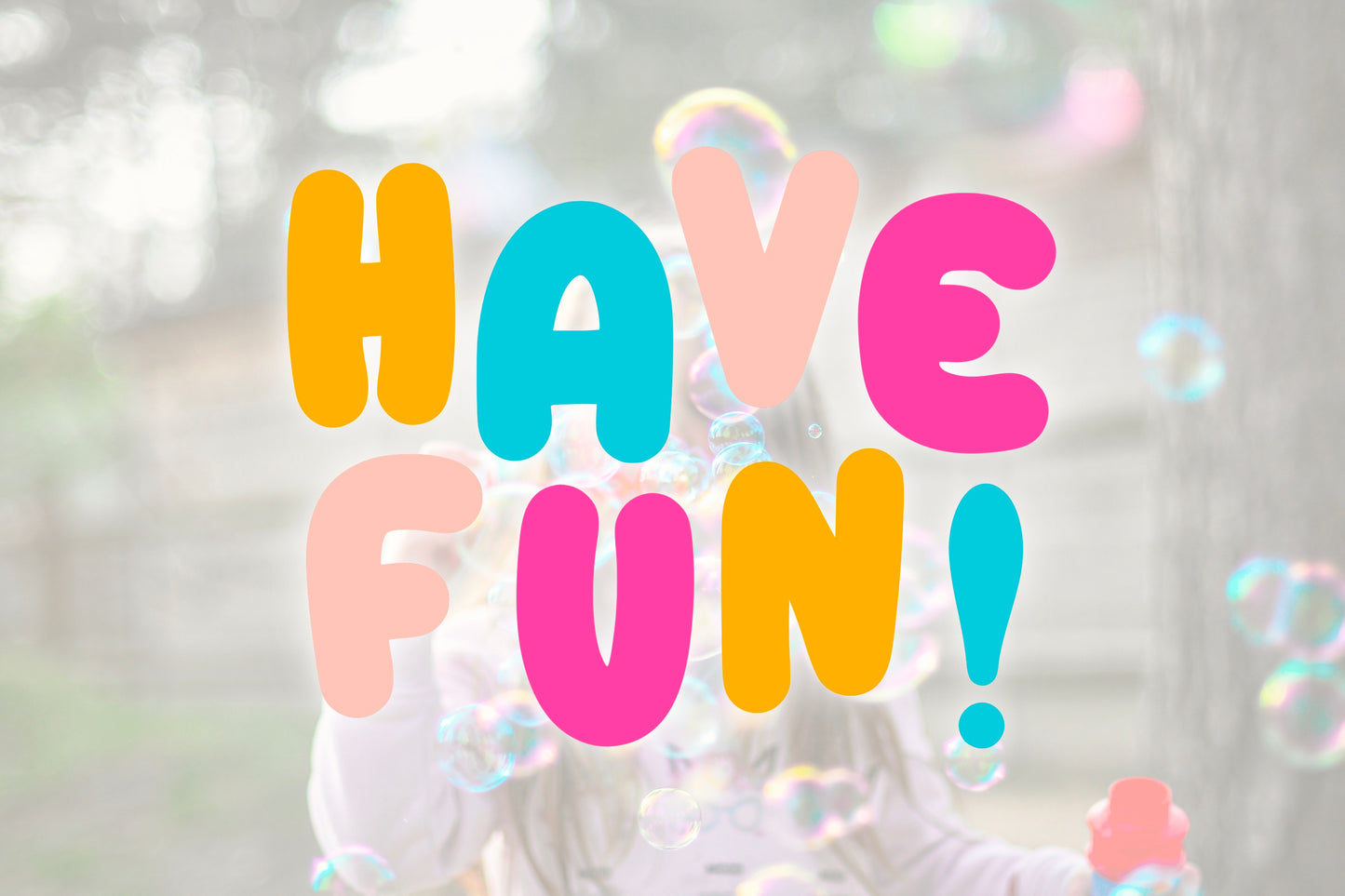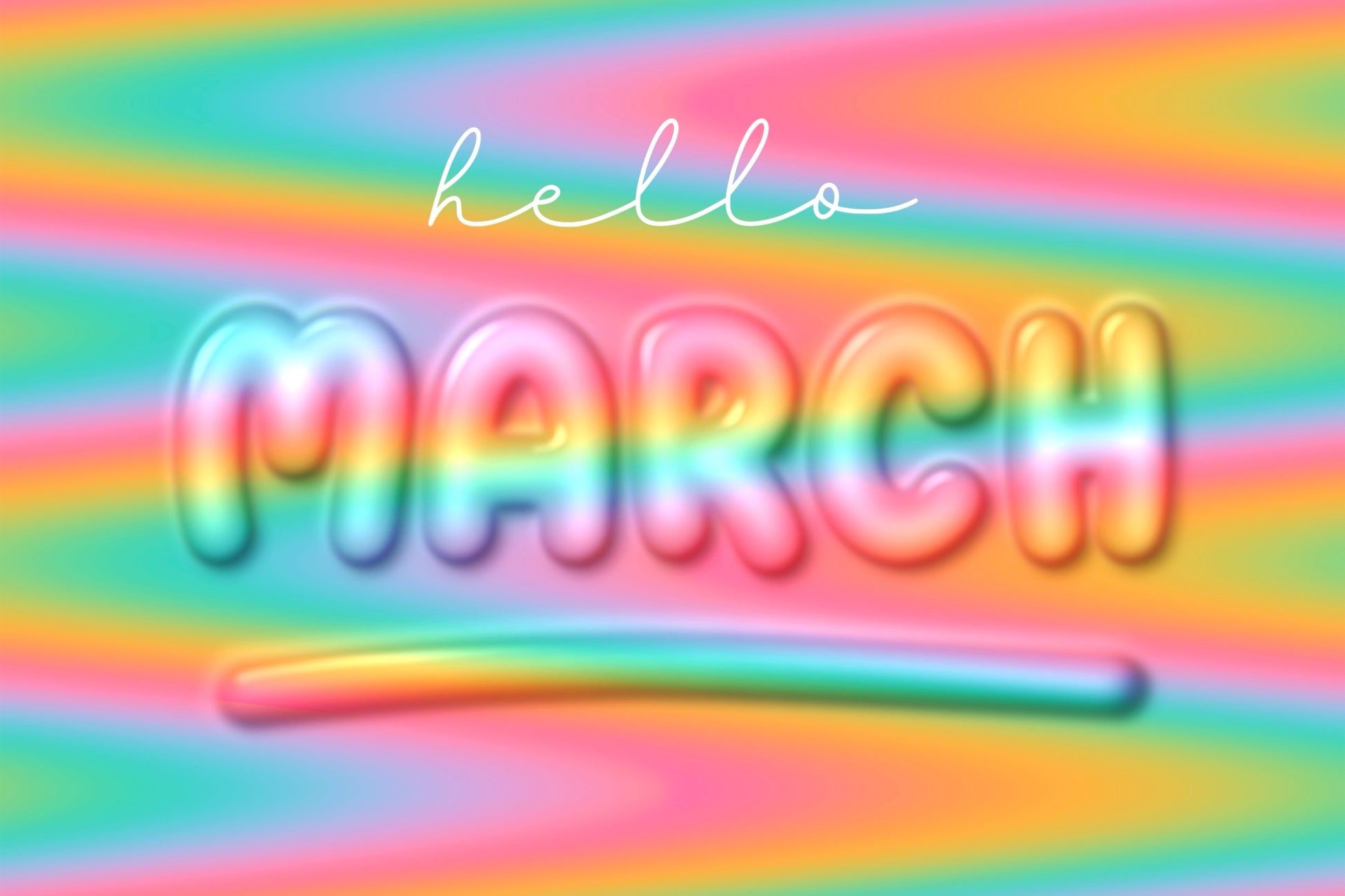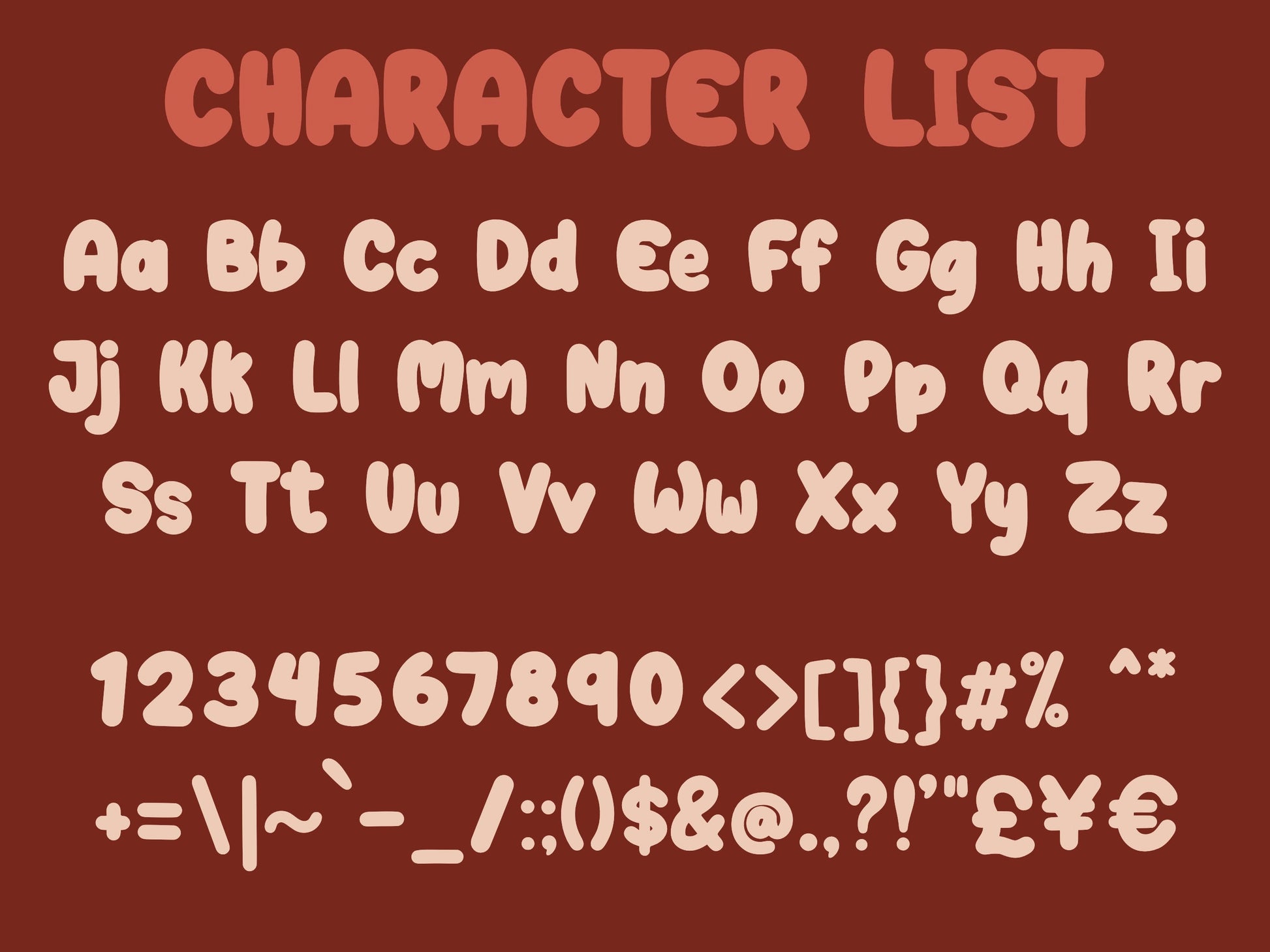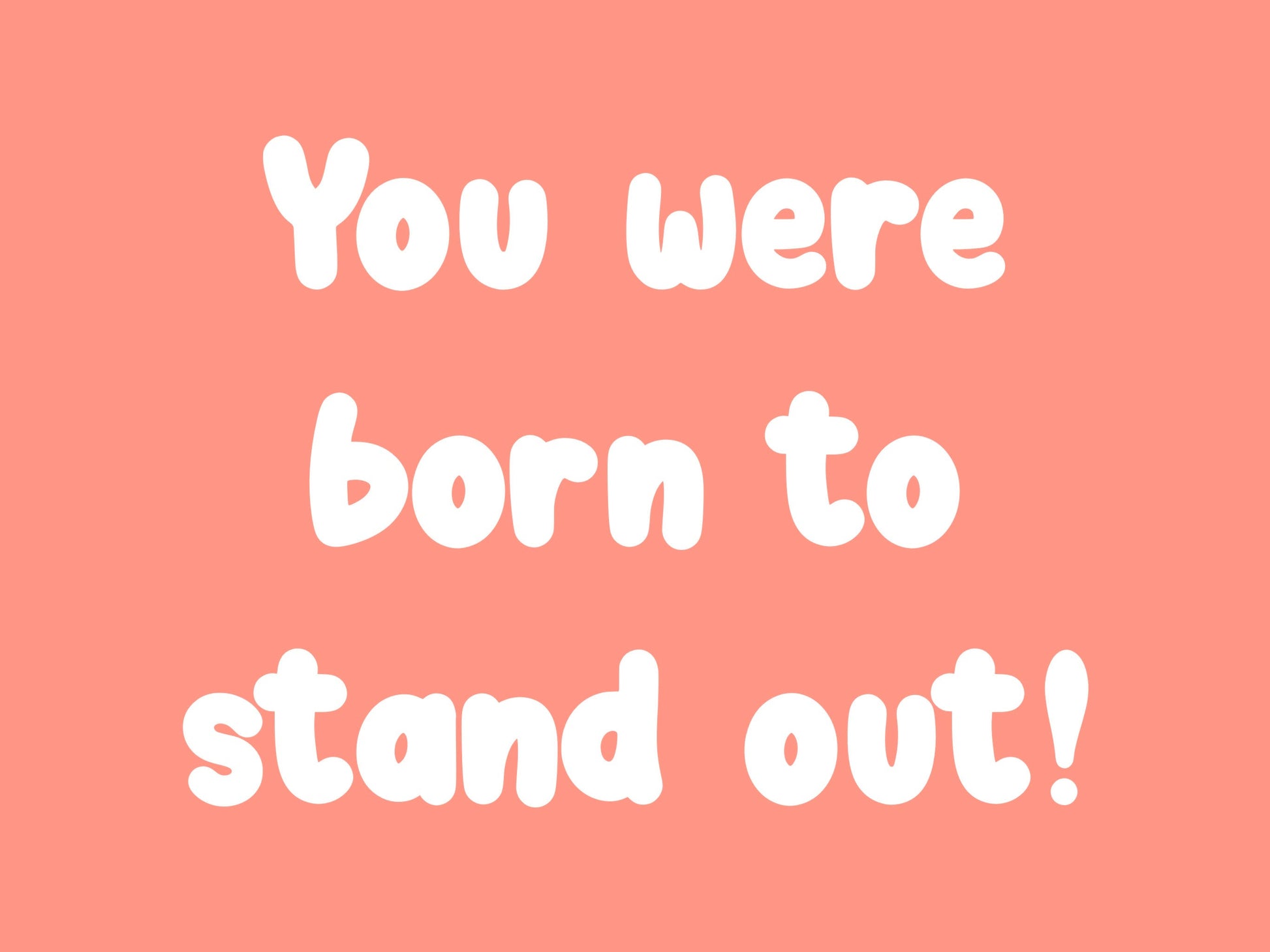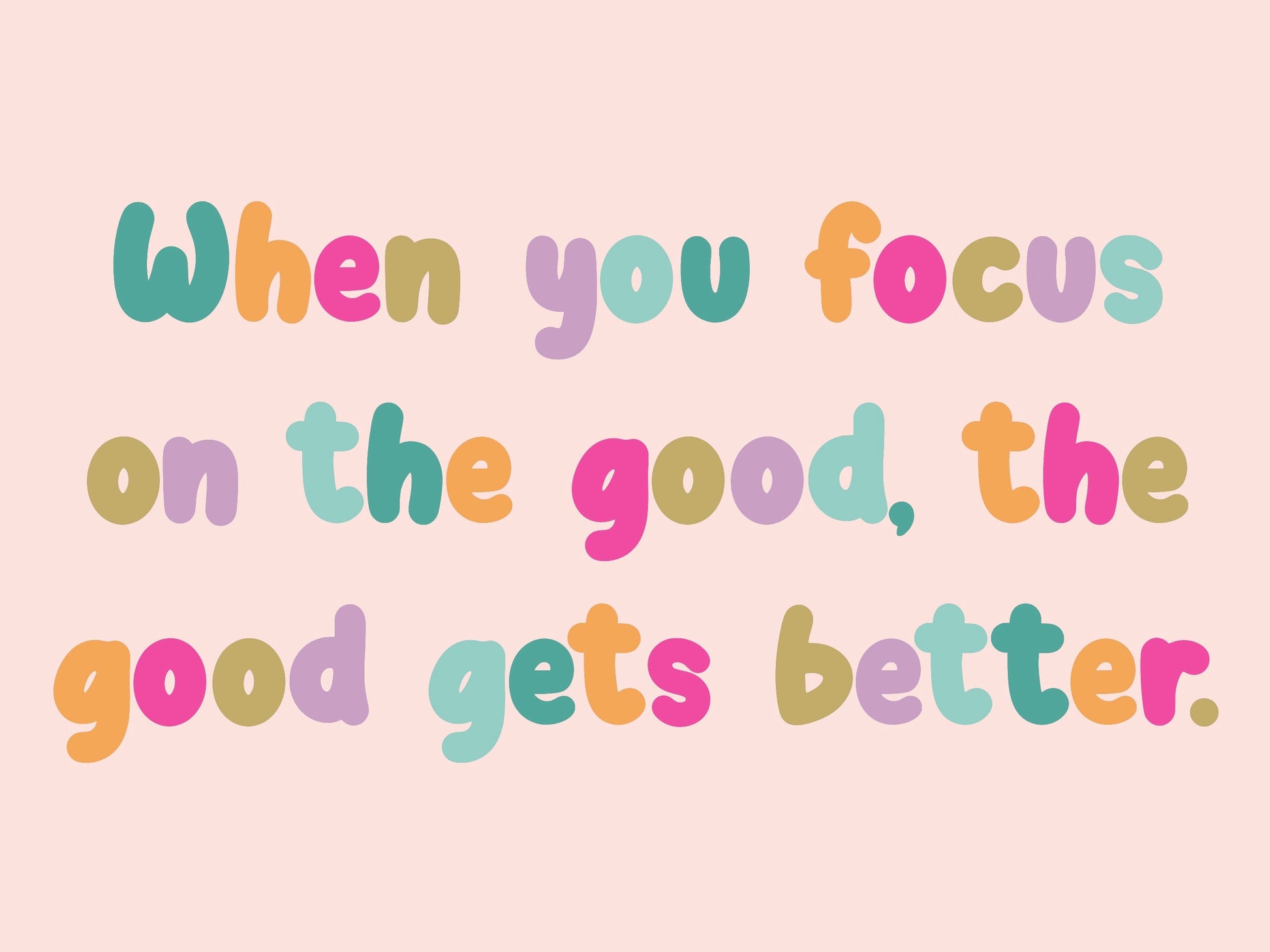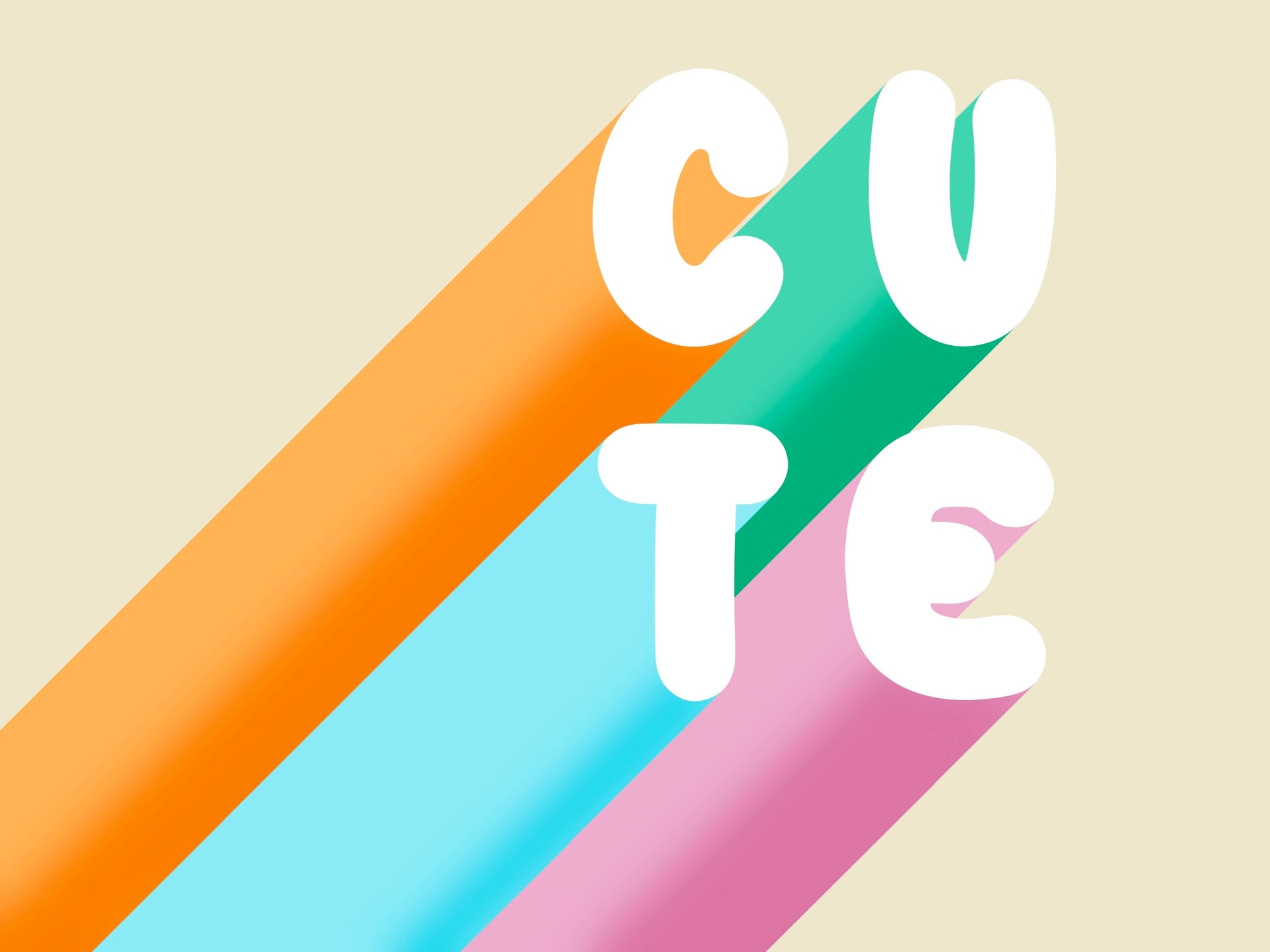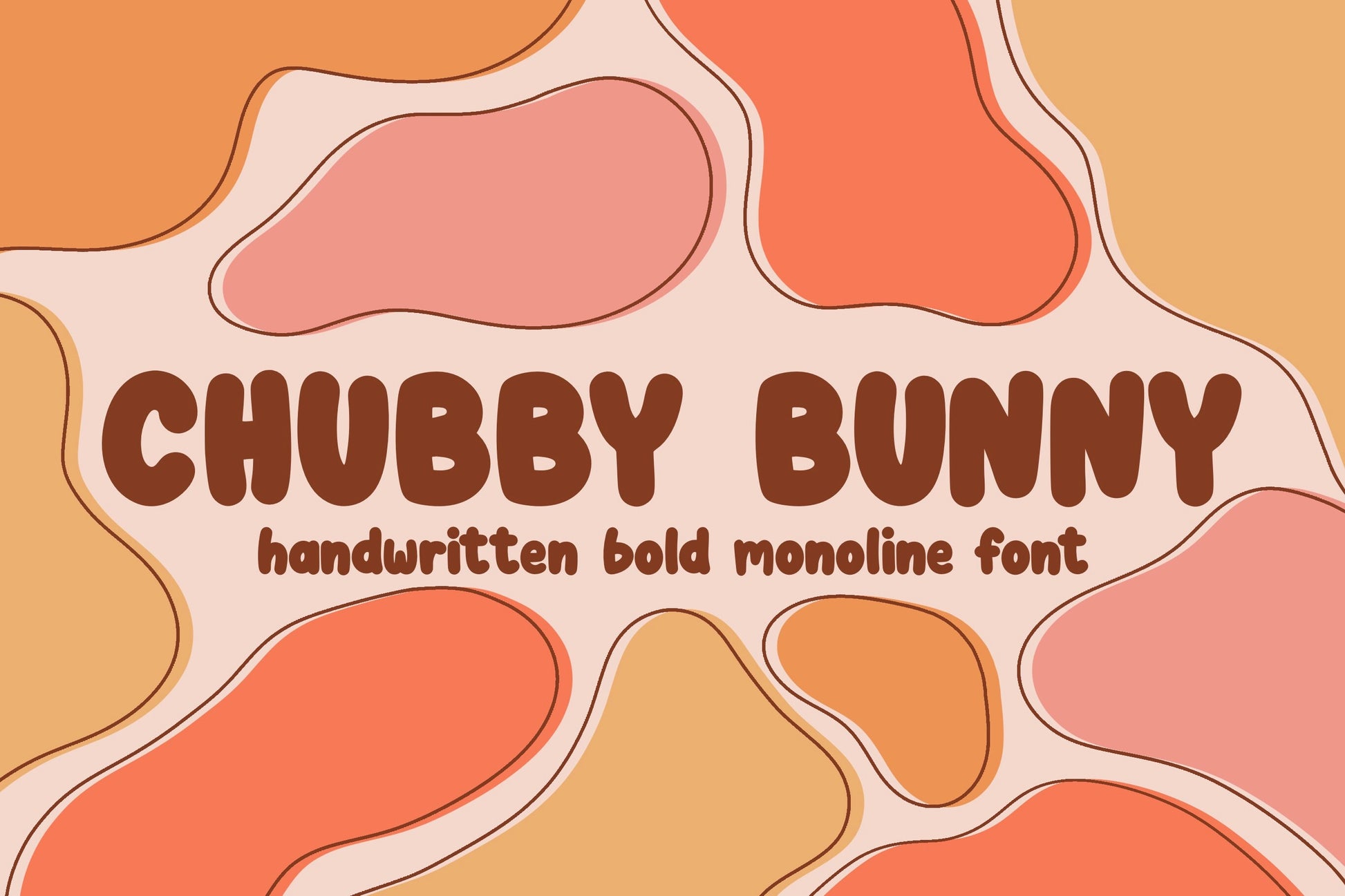
Chubby Bunny Hand Drawn Font
Introducing the Chubby Bunny font! This unique, bold monoline font will add a fun, playful, handmade flare to your design! Perfect for type designs, posters, logos, stickers, and anything else you can think of!